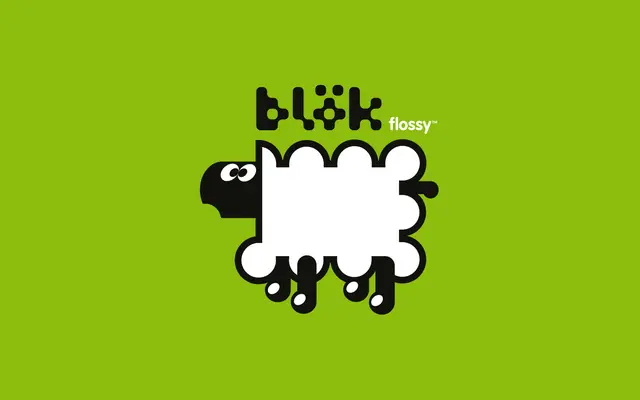
BD Flossy
A 1995 dingbat font from Büro Destruct built entirely from a single sheep character called Flossy, originally created as a Postscript Type 1 encoding experiment in Fontographer.
The first typeface released by Büro Destruct, BD Flossy encodes a sheep named Flossy across the character set in place of conventional letterforms. It originated as a technical experiment in encoding Postscript Type 1 fonts using Fontographer on Mac, at a time when the workflow was notoriously troublesome to configure correctly. Available as a free download, it is a curio of mid-1990s type experimentation rather than a workhorse text face.
BD Flossy is a dingbat/picture font composed entirely of sheep characters rather than alphanumeric glyphs, placing it firmly in the display/ornamental dingbat category.